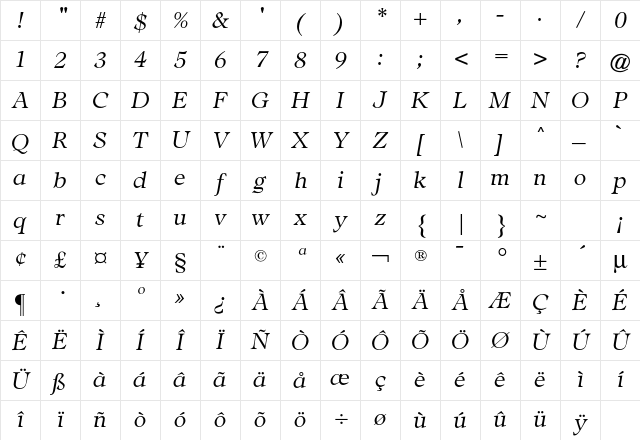
Adroit CG Light Italic
Foundry: Miles Inc
Design Context for Adroit CG Light
Adroit CG Light is a composed and adaptable typeface that performs quietly and consistently across a wide range of design contexts. The slanted form adds forward momentum and visual energy. Its slender proportions lend an understated elegance to any composition.
Pro Tip: Use Adroit CG Light for emphasis, pull quotes, and subheadings where its slanted energy can add rhythm to the layout.
Who designed the Adroit CG Light Italic font?
This font was published by Miles Inc. Check the technical specs section for copyright and designer details.